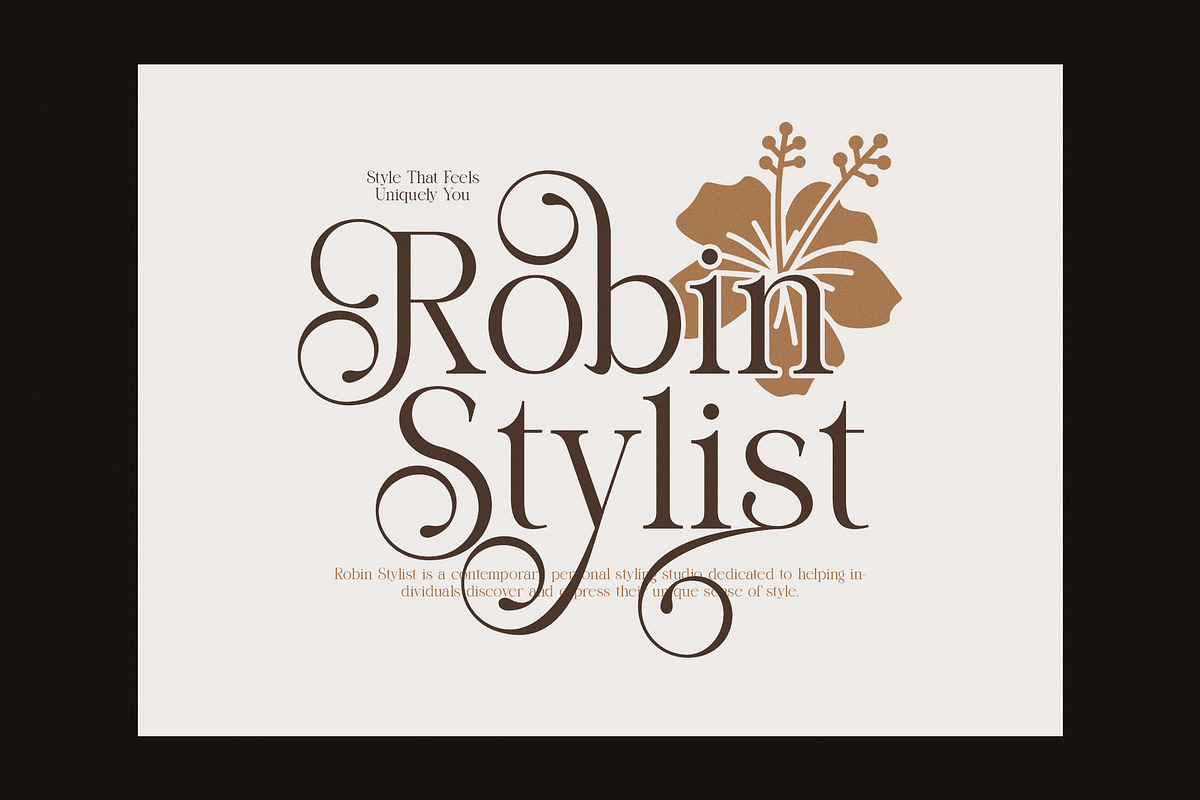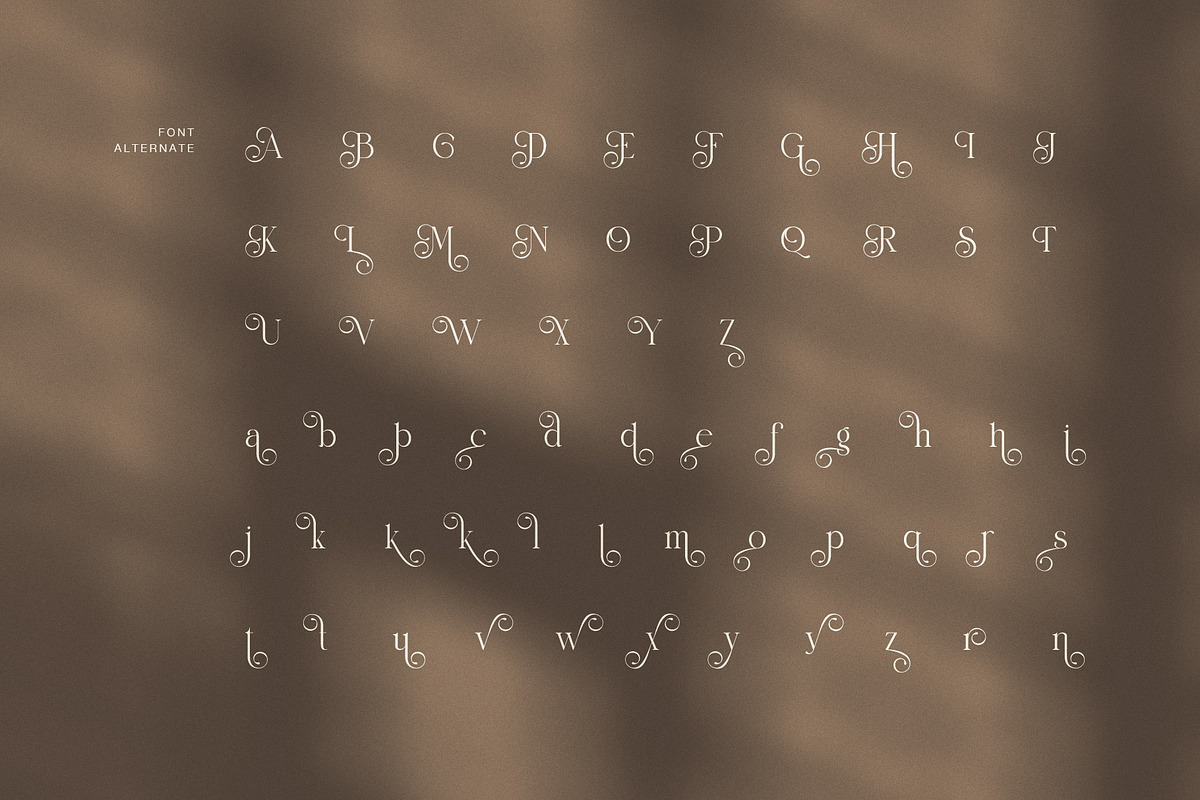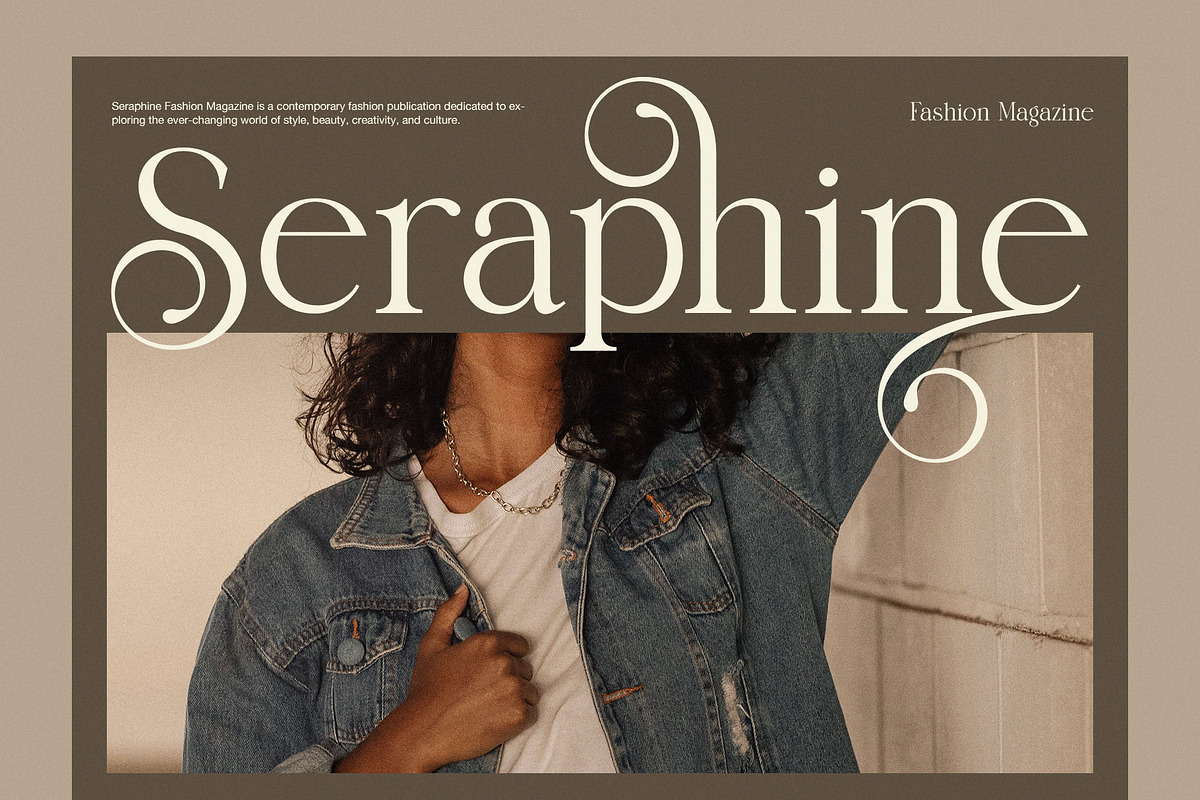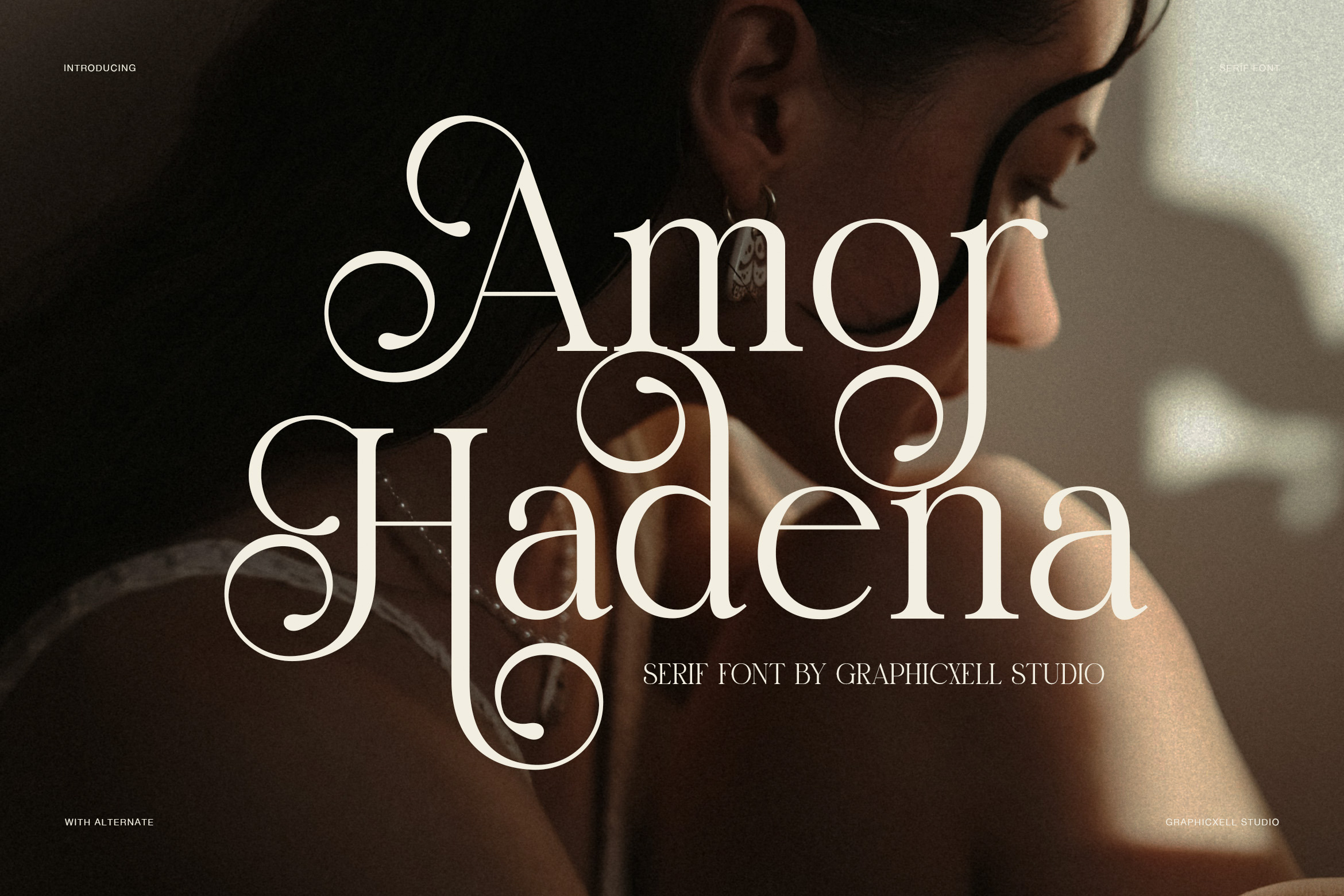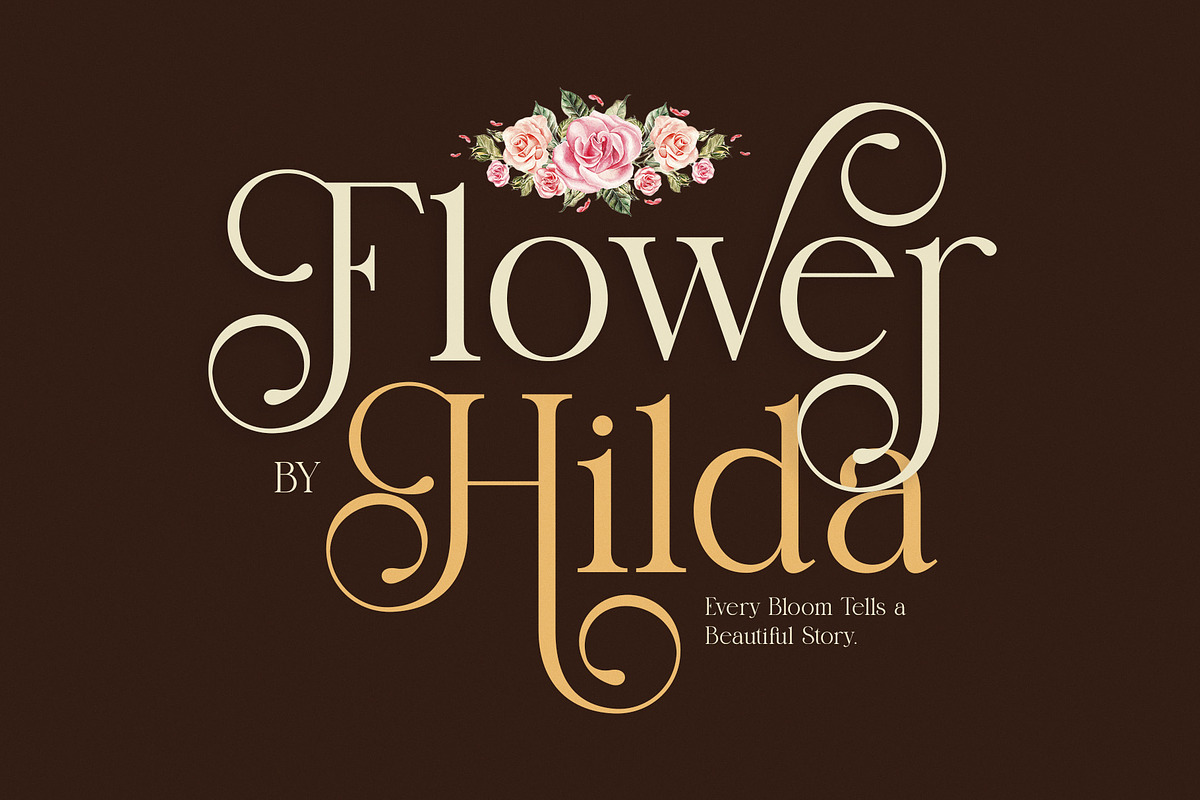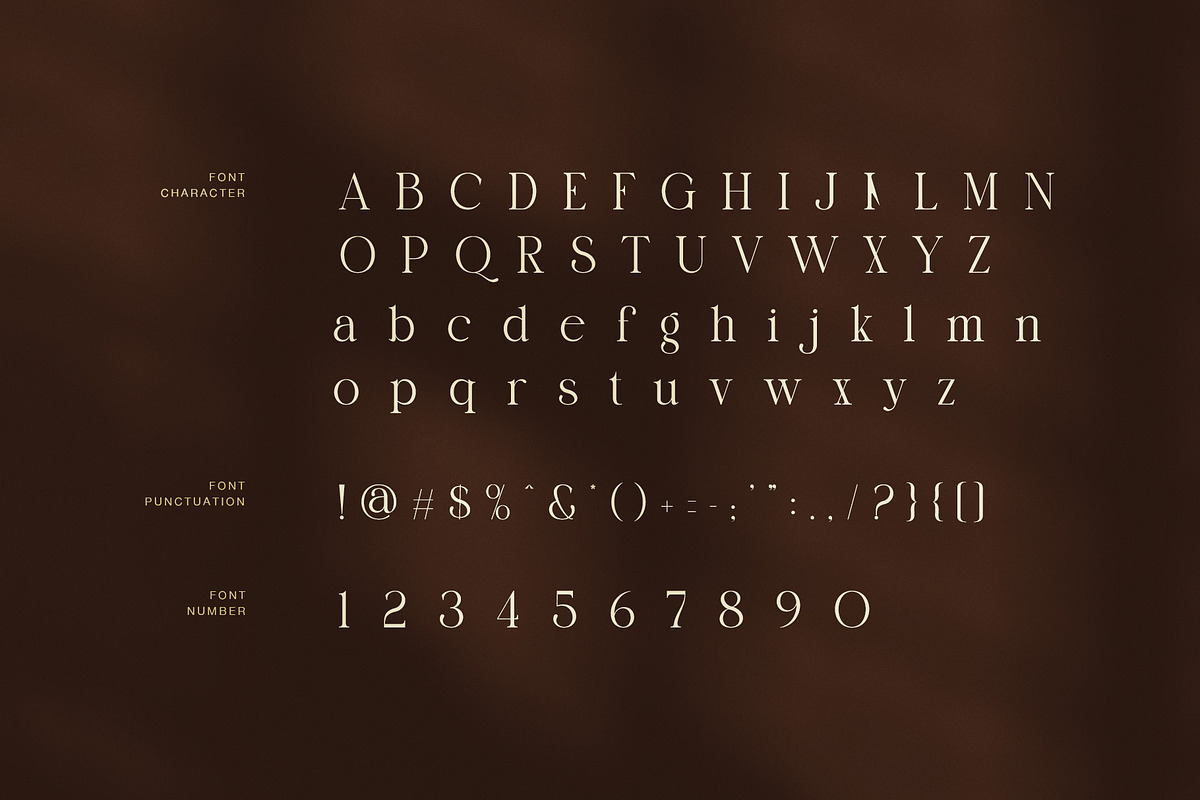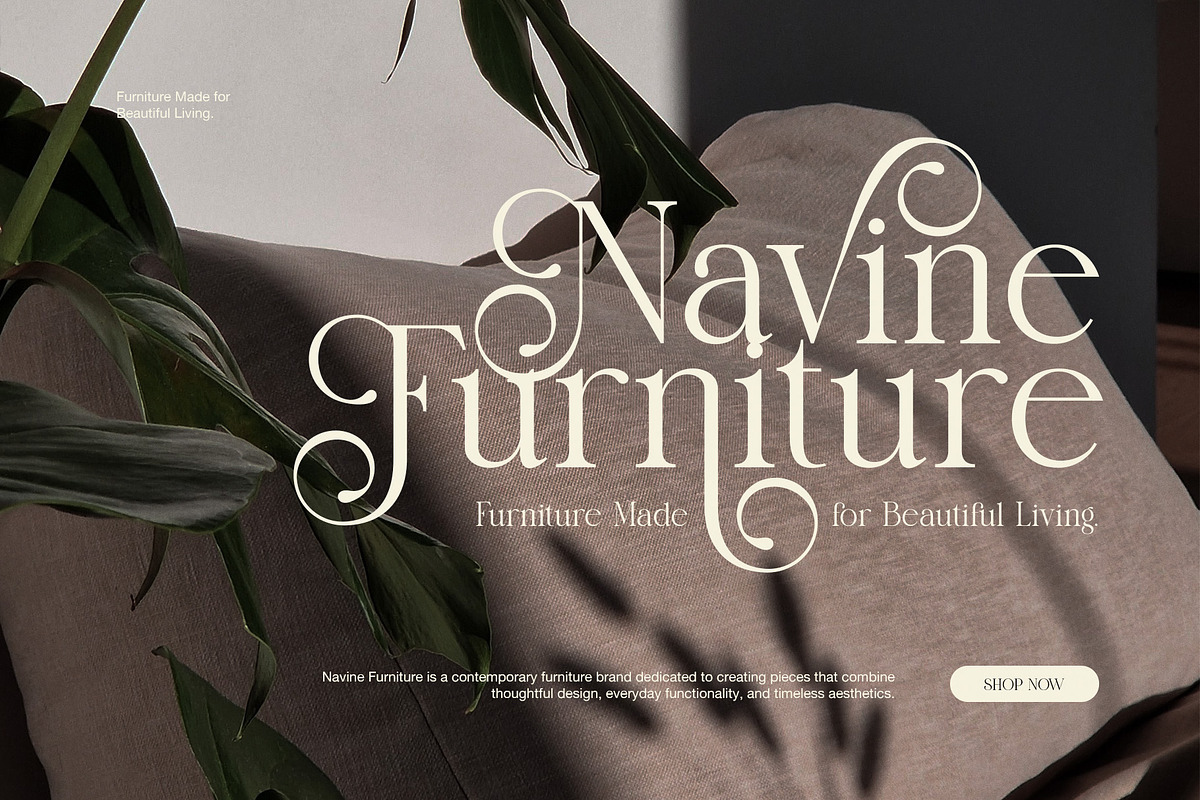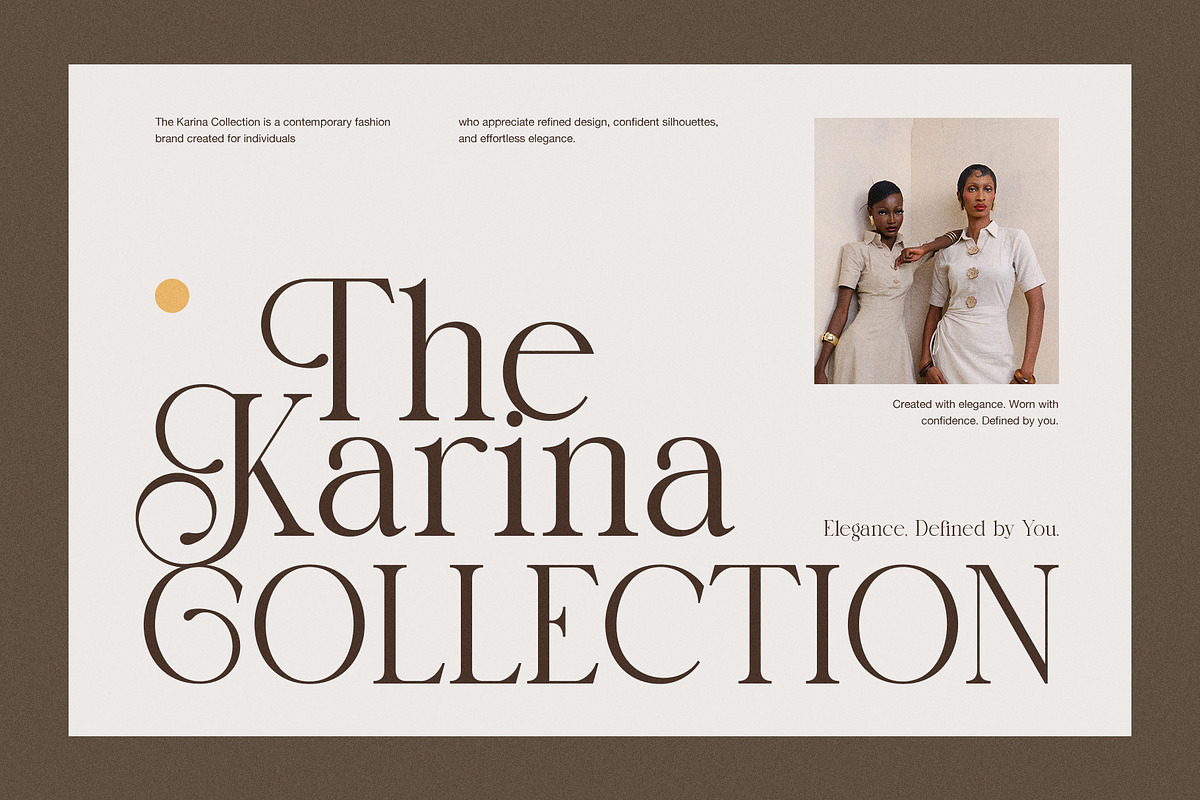
Amor Hadena Elegant Serif Font
Amor Hadena is an elegant swash serif font created for expressive branding, fashion, beauty, and editorial design. Its refined serif structure gives every word a polished foundation. Meanwhile, decorative swashes bring a graceful and distinctive finish.
The standard characters offer a sophisticated display style. However, the alternate glyphs allow designers to introduce more movement and personality. As a result, the same typeface can create subtle wordmarks or dramatic statement typography.
Amor Hadena features graceful curves, high contrast, refined proportions, and ornamental details. Therefore, it works especially well when typography needs to feel elegant without looking ordinary.
Ideal for:
Fashion branding
Beauty and skincare logos
Luxury identity design
Wedding stationery
Boutique branding
Editorial layouts
Magazine covers
Beauty campaigns
Product packaging
Perfume branding
Jewelry identities
Romantic invitations
Posters and headlines
Creative logo design
Furthermore, the swash alternates are useful for highlighting important letters. They can transform a simple word into a more memorable visual mark. Because of this, Amor Hadena is especially effective for names, titles, initials, and short phrases.
The decorative characters also create a handcrafted impression. Yet, the underlying serif construction keeps the overall appearance refined and controlled. This balance makes the font suitable for both modern and classic visual directions.
For fashion projects, Amor Hadena adds an editorial quality with a romantic edge. Likewise, beauty brands can use its graceful curves to create a softer identity. Wedding designers can also use the flourished characters for invitations, menus, signage, and stationery.
In addition, the font works beautifully with minimal layouts, neutral palettes, elegant photography, and generous spacing. Its large display forms are especially effective when given enough room to show their distinctive details.
Amor Hadena is designed for creatives who want typography with character, elegance, and decorative flexibility. Whether used for a sophisticated logo or a striking headline, it brings a memorable visual presence to the composition.
Overall, Amor Hadena combines elegant serif forms, expressive swashes, graceful alternates, and editorial charm. Therefore, it is a strong choice for designers creating refined fashion, beauty, luxury, wedding, and lifestyle visuals.